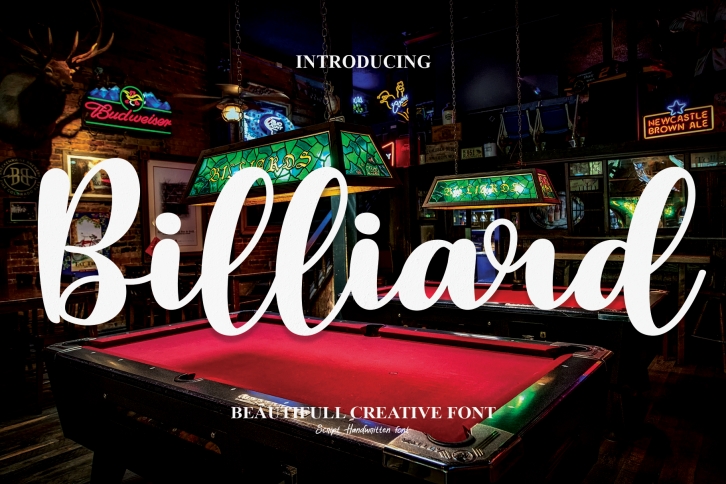
Billiard is a casual, unique and adaptable handwritten font. You can successfully add this elegant font to your wedding invitations, business cards, greeting cards, social media posts, wall art and much more.